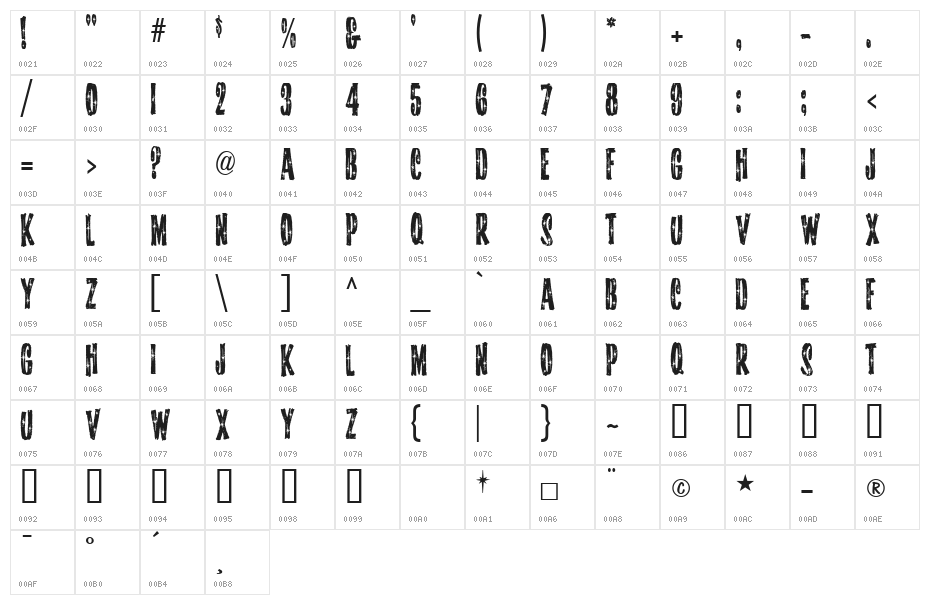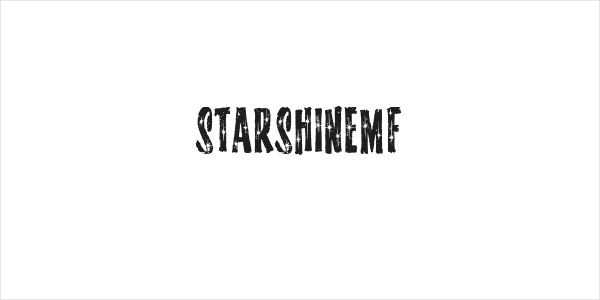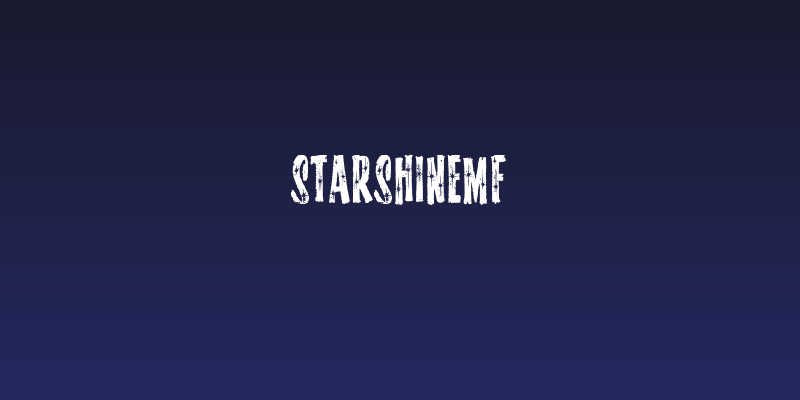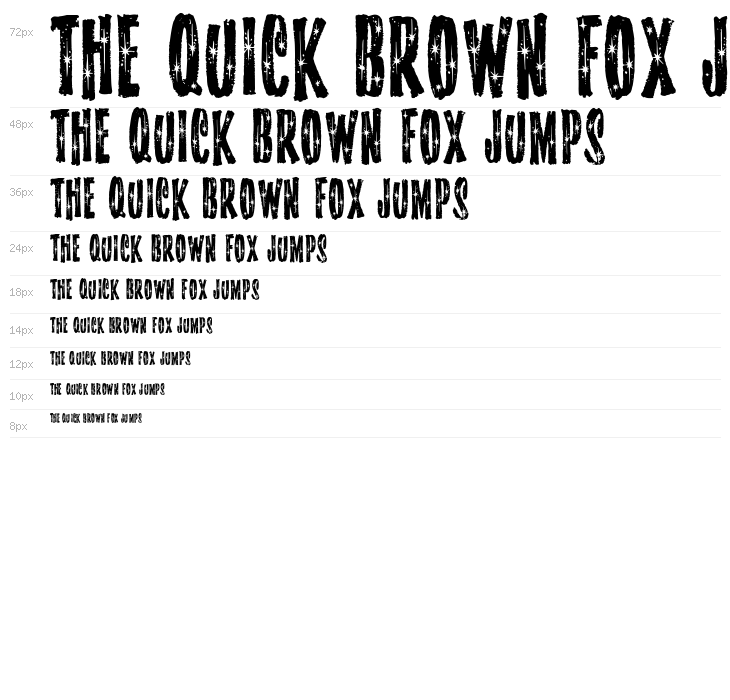
StarshineMF Font
StarshineMF Description
This font features a bold and distressed style with a unique star pattern embedded within each character. The uppercase and lowercase letters maintain a consistent rugged texture, giving it a weathered and vintage appearance. The numbers and special characters follow the same design, ensuring uniformity across all elements. The star embellishments add a playful and whimsical touch, making it stand out as a decorative choice. The overall design is eye-catching and ideal for projects that require a bold statement.
| Overall Style | Vintage, Decorative |
| Proposed Projects | Ideal for posters, album covers, event flyers, and any project needing a bold, decorative touch. |